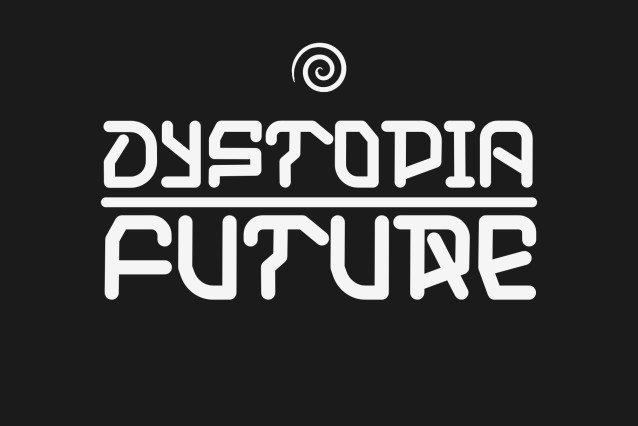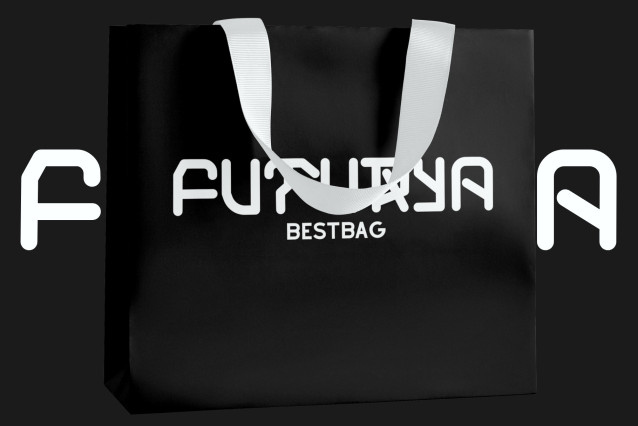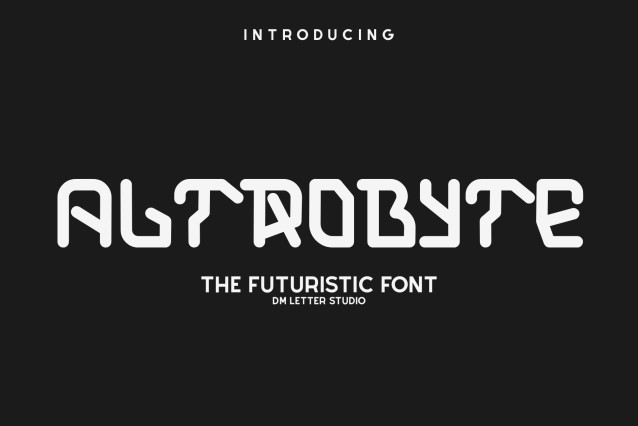
Altrobyte Font
Altrobyte Font is a bold, digital-era display font crafted for tech-savvy designs. Featuring blocky characters with pixel-inspired edges and futuristic styling, Altrobyte feels right at home in game UIs, glitch posters, and sci-fi branding. Its strong, angular construction ensures your titles stand out with retro-tech flair while remaining readable and impactful.